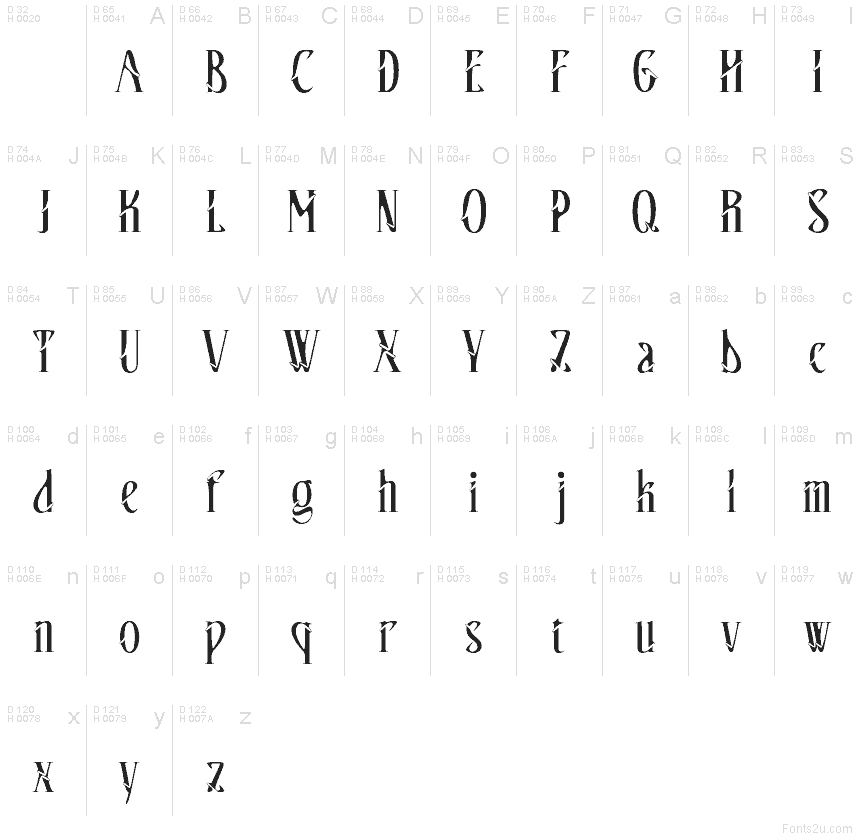
CSRhodesDrawn-Regular Demo
CS Rhodes Drawn font by Craft Supply Co. is a free high-contrast retro serif display font. Part of the CS Rhodes family, it stands out with sculpted, ribbon-like strokes that taper to fine points, then swell into inky pools—like a poster title sketched with a sharp brush. The rhythm feels engraved and dramatic, with blade-serifs and tight curves that create a luxe, hand-done shimmer without fuss.
Using CS Rhodes Drawn, headlines snap into focus and hold it—great for boutique branding, wine or fragrance packaging, editorial covers, event posters, album art, and statement invitations. This free font loves large sizes and slightly tighter tracking. For body copy, pair it with a quiet, neutral grotesque to keep the spotlight on those glamorous, drawn letterforms.